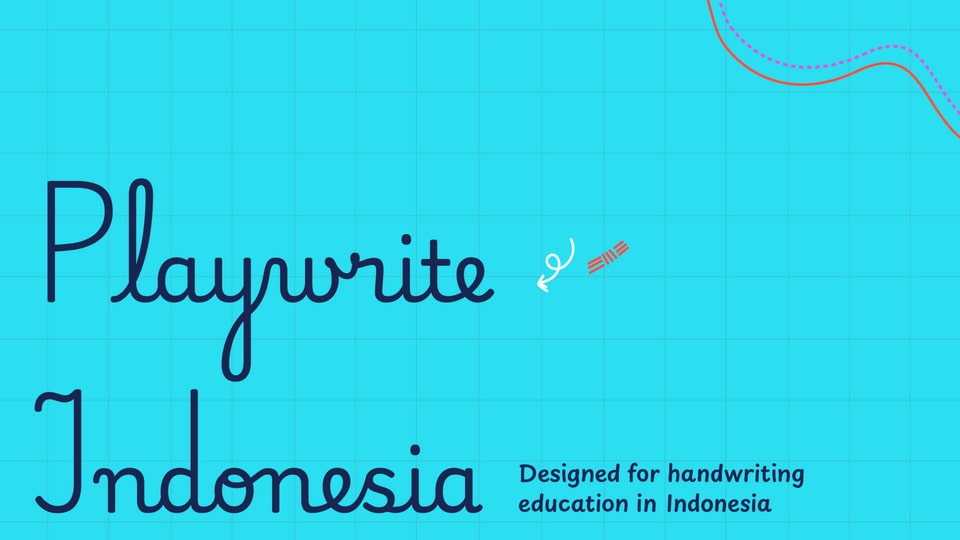
Download Playwrite Indonesia, a typeface that allows the creation of primary school cursive fonts. This style uses the traditional French model as its basis.
Designer: TypeTogether